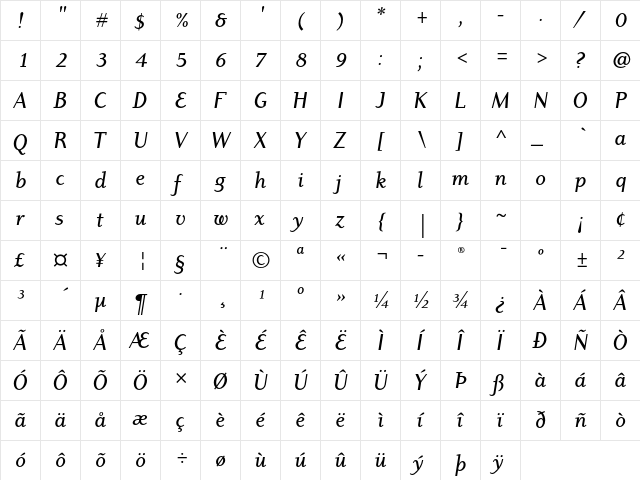
Dyadis ITC Std Medium Italic
| Designer | Yvonne Diedrich |
Design Context for Dyadis ITC Std Typeface
Dyadis ITC Std offers clean, dependable letterforms without strong stylistic allegiance, making it a practical choice for designers who need flexibility. Its italic angle brings a sense of urgency and motion to the letterforms.
Pro Tip: Use Dyadis ITC Std for emphasis, pull quotes, and subheadings where its slanted energy can add rhythm to the layout.